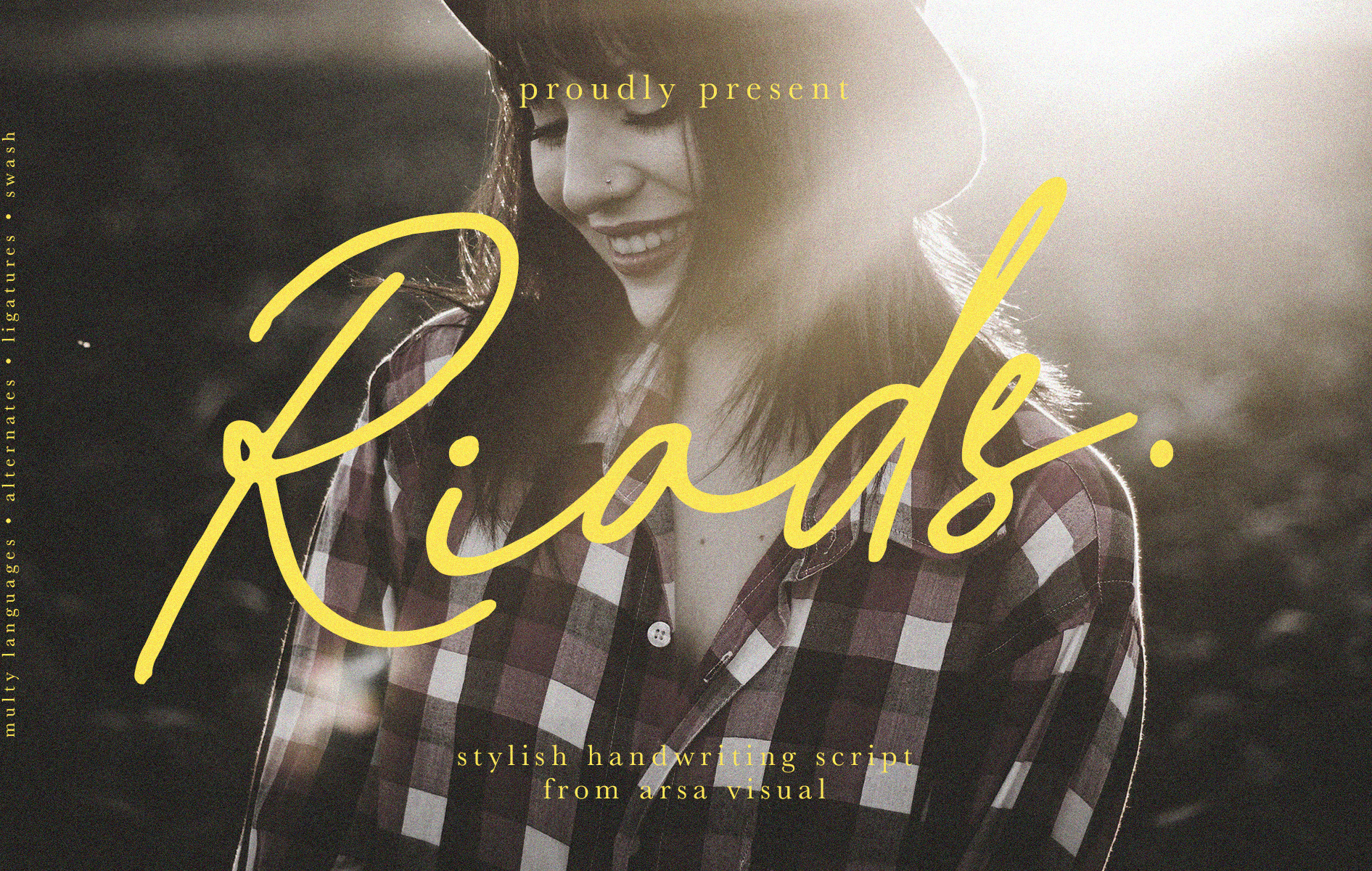
Riads - Stylish Handwriting Font
Introducing "Riads - Stylish Handwriting Font" with a signature style look. "Riads Script" very recommended for you who want to make some designs with natural handwriting style. This font easy to use and perfect for elegant branding, greeting cards, wedding design, name card design, invitation design, poster, packaging, romantic book cover designs, handwritten quotes, unique social media post, and so much more.
- Uppercase and Lowercase Alternates
- Number and Punctuation
- Multi Languages